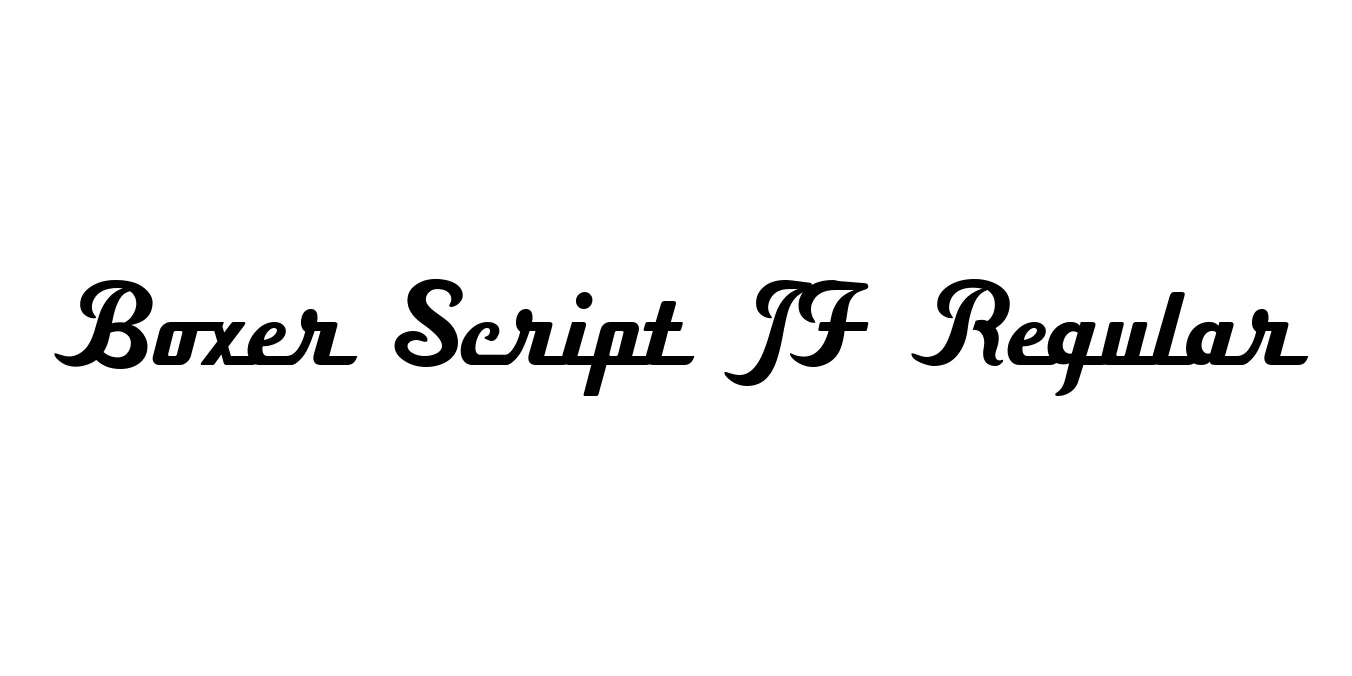
Boxer Script JF Regular
Designed by Jason Walcott (Jukebox Collection)
Boxer Script JF Regular is a robust and energetic brush script font designed by Jason Walcott as part of the renowned Jukebox Collection. Drawing inspiration from mid-century hand-lettered signage and athletic motifs, this typeface exudes a sense of strength and movement. Its thick, fluid strokes mimic the natural flow of a heavy paint brush, making it an excellent choice for designs that require a bold, masculine presence without sacrificing the organic feel of calligraphy.
Originally released to capture the vintage aesthetic of 1950s advertising, Boxer Script JF has become a staple for designers looking to evoke nostalgia. The font features high-contrast connections and a slight slant that adds a dynamic quality to headlines and logos. Its versatile nature allows it to perform well in both retro-themed projects and modern branding that seeks a hand-crafted, high-impact visual identity.
Boxer Script JF Regular Best Uses
Ideal for logos that need a bold, hand-lettered vintage feel.
Perfect for jersey lettering and athletic equipment branding.
Great for high-impact headlines in posters and social media graphics.
Works well for storefront signs and retro-themed restaurant menus.